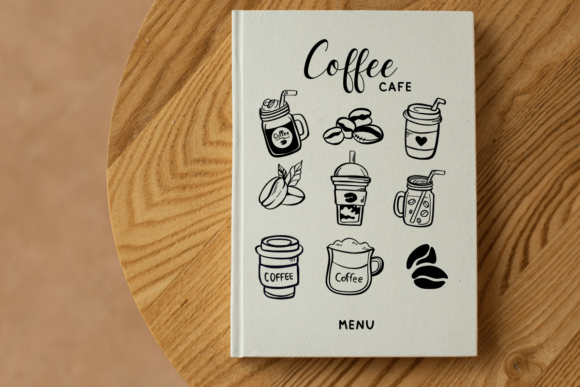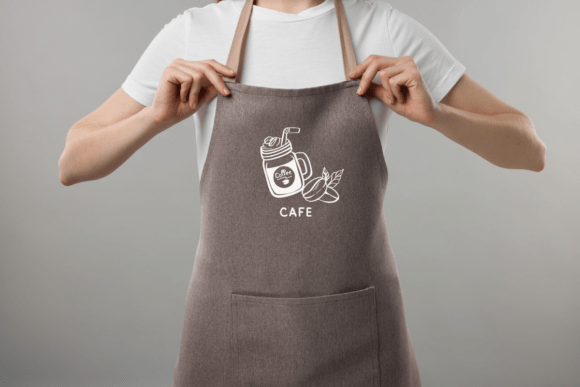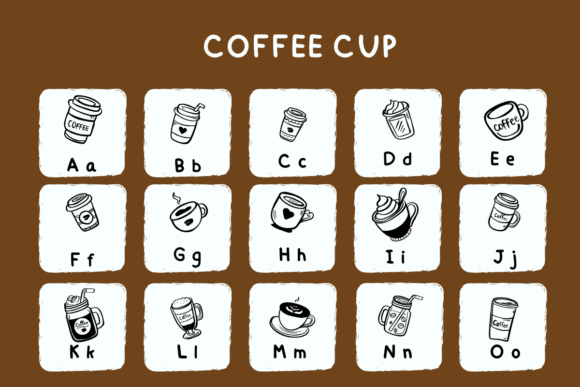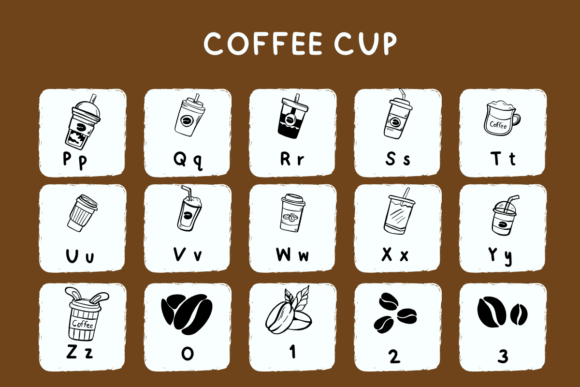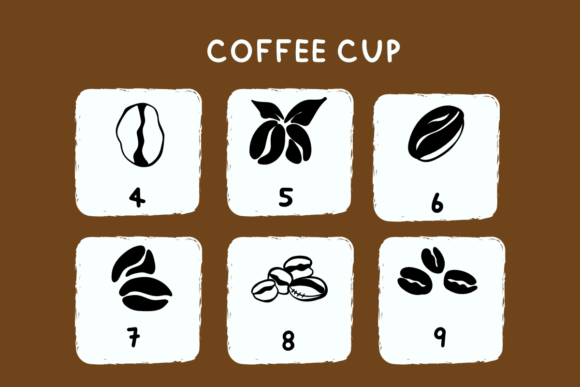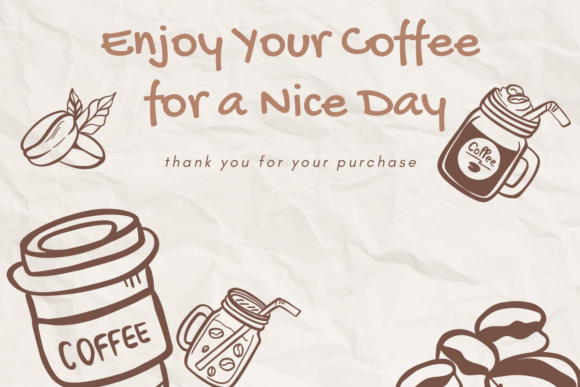
Steeped in Creativity
Remember that moment when you’re brainstorming ideas for a new project, and a spark of inspiration hits you? The world around you comes alive with possibilities, and you can’t wait to bring your vision to life. For many creatives, that spark often starts with the perfect font – one that captures the essence of their imagination and sets the tone for their masterpiece.
Enter Coffee Cup Font, a delightful dingbats font that embodies the perfect blend of whimsy and charm. This unique font is designed to elevate your creative endeavors, from invitations and DIY projects to craft creations and logos. With its vintage allure, Coffee Cup Font is a valuable addition to any designer’s toolkit, promising to breathe life into even the most mundane projects.
Whether you’re a seasoned designer or a budding creative, Coffee Cup Font is an essential tool to add to your arsenal. Its artistic flair is sure to captivate your audience and leave a lasting impression.
Coffee Cup Font Key Features
- Unique Characteristics: The Coffee Cup Font features a distinctive, hand-drawn design with a playful and whimsical feel, making it suitable for creative projects and branding.
Coffee Cup Font Review
Overall, the Coffee Cup Font is a quirky and playful addition to any design project. I appreciate its unique charm and the fact that it’s perfect for adding a touch of whimsy to menus, coffee shops, or even food blogs. ✨ The font is well-suited for titles, headings, and short paragraphs, making it a great choice for designers looking to add some personality to their work.
However, there are some limitations to consider. The font’s readability can be a concern, especially when used for large blocks of text. ✨ I also noticed that the font doesn’t support bold or italic styles, which can make it difficult to create emphasis or convey tone. Additionally, the font’s design is quite specific, which may not be suitable for all design projects or audiences.
What I Like:
- Unique and playful design
- Perfect for adding a touch of whimsy to menus, coffee shops, or food blogs
- Well-suited for titles, headings, and short paragraphs
- Readability can be a concern for large blocks of text
- No support for bold or italic styles
- Font design may not be suitable for all design projects or audiences
Overall Impression:
The Coffee Cup Font is a fun and quirky addition to any design project, but its limitations should be carefully considered. If you’re looking to add a playful touch to your work, this font may be worth exploring. However, for more formal or complex design projects, you may want to consider alternative options.
Tips for Getting the Most Out of the Coffee Cup Font
Use the Coffee Cup Font to add a fun and playful touch to your designs. It’s perfect for coffee shops, bakeries, or any other business that serves food and drinks.
Experiment with different font sizes and colors to create a visually appealing design.
The Coffee Cup Font is commonly used for:
- Coffee shop menus
- Bakery signage
- Food truck branding
- Restaurant logos
Alternatives to Coffee Cup Font
Pacifico is a modern calligraphy font that features elegant, flowing lines. It is ideal for use in wedding invitations, restaurant menus, and other designs where a touch of sophistication is desired. Unlike Coffee Cup Font, Pacifico has a more refined and polished look, making it suitable for formal and upscale projects.